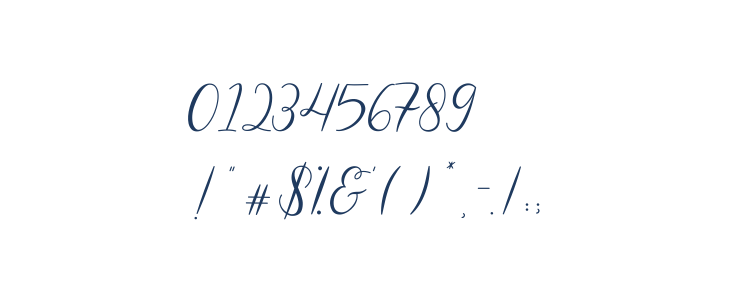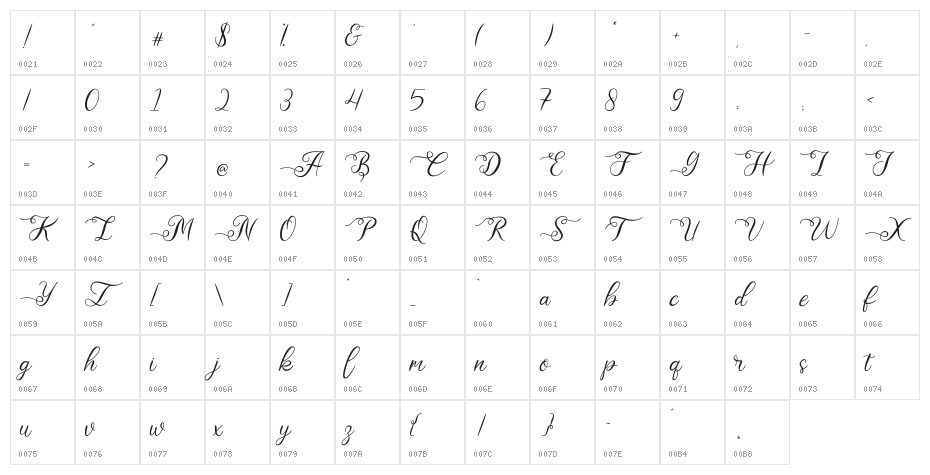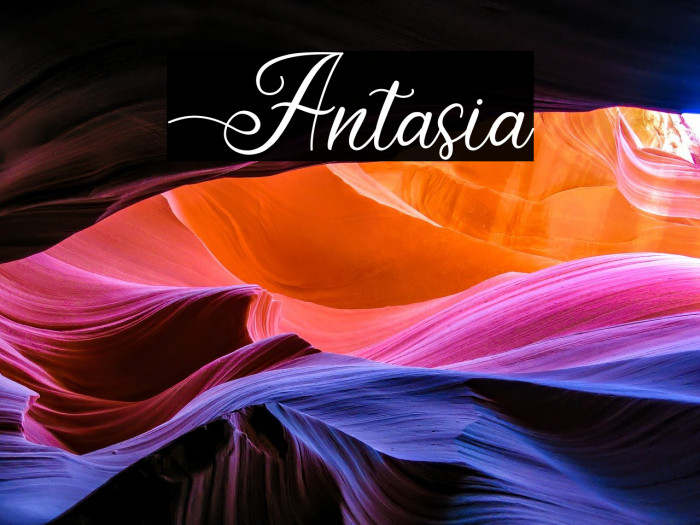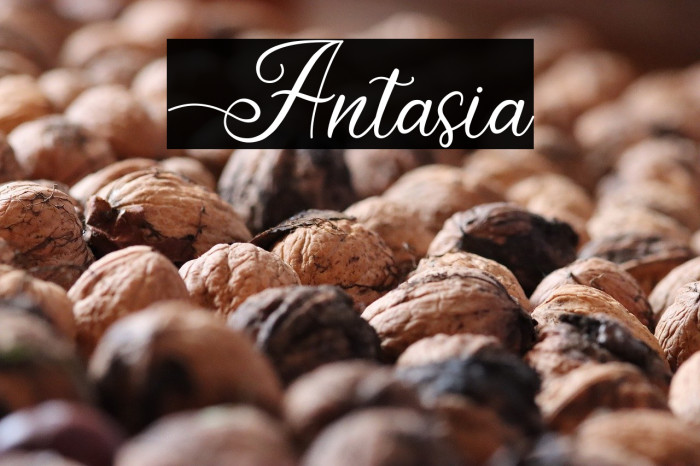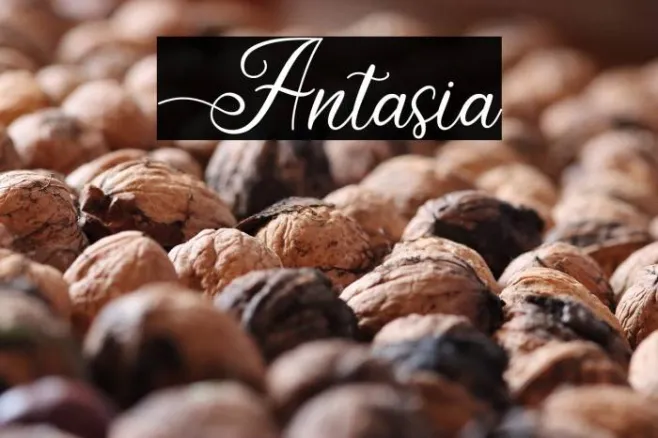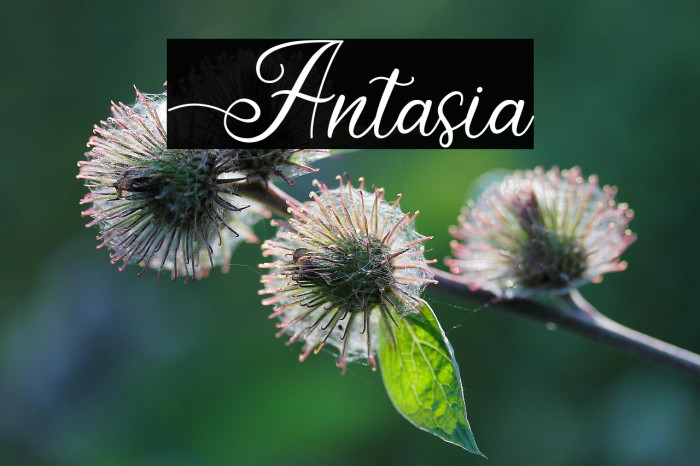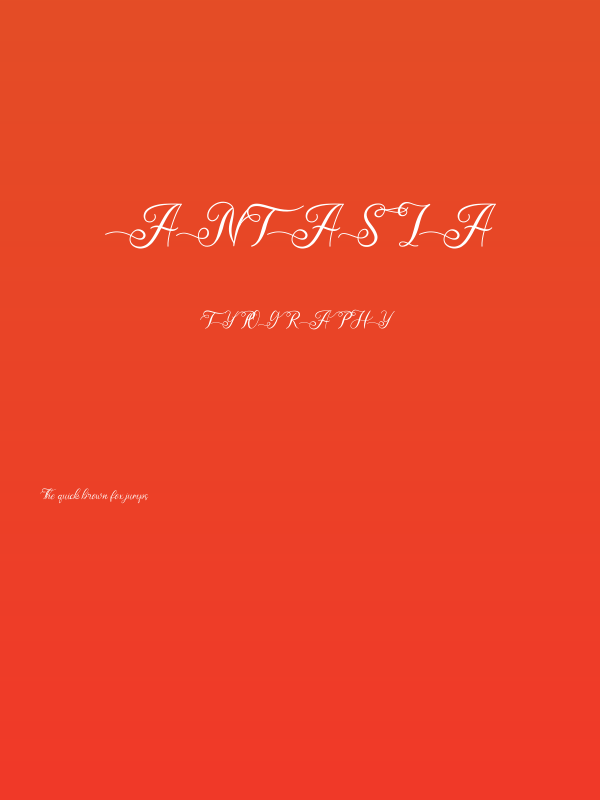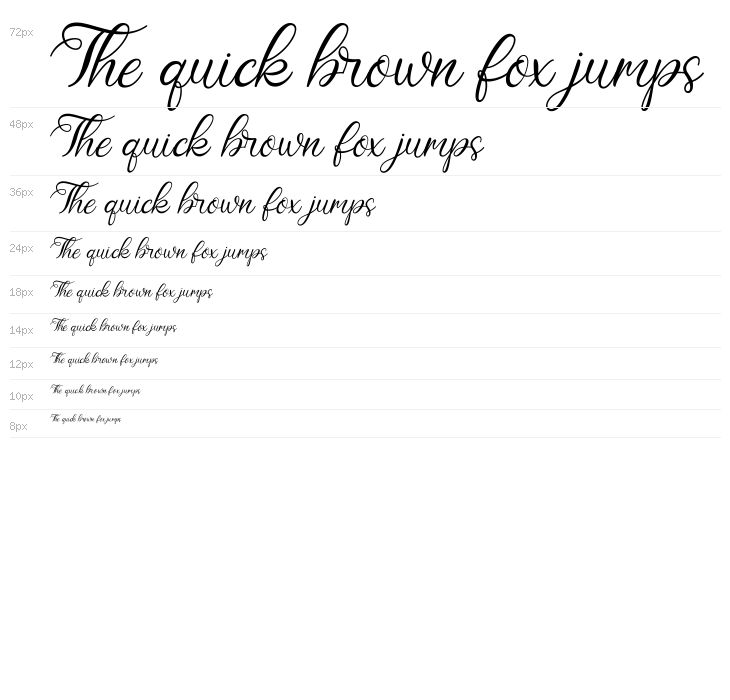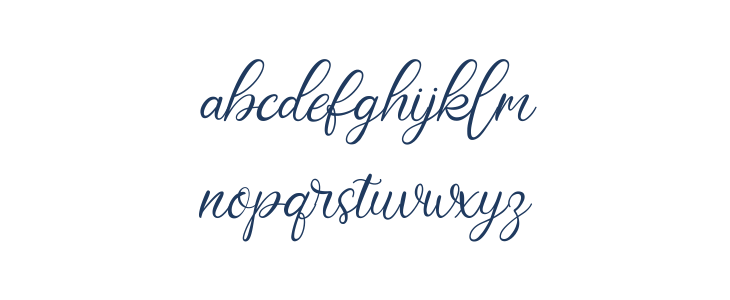
Antasia Font
Antasia Description
This elegant script font features flowing, interconnected letters that exude a sense of sophistication and grace. The uppercase letters are adorned with intricate swirls and flourishes, adding a decorative touch that enhances its visual appeal. The lowercase letters maintain a smooth, cursive style, ensuring readability while retaining an artistic flair. The numerals are consistent with the overall style, featuring gentle curves and a balanced design. Special characters are thoughtfully integrated, complementing the font's aesthetic. This font is perfect for projects that require a touch of elegance and creativity.
| Proposed Projects | Ideal for wedding invitations, elegant branding, greeting cards, and decorative signage. |